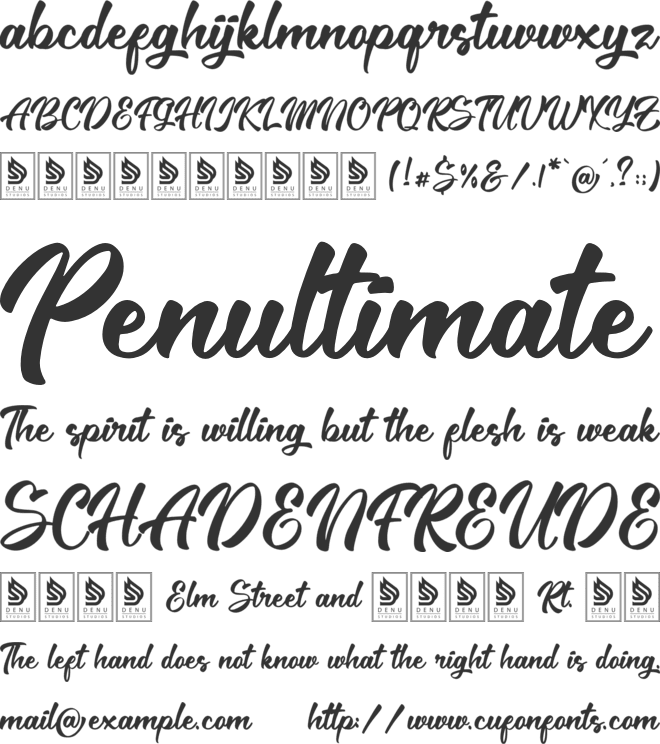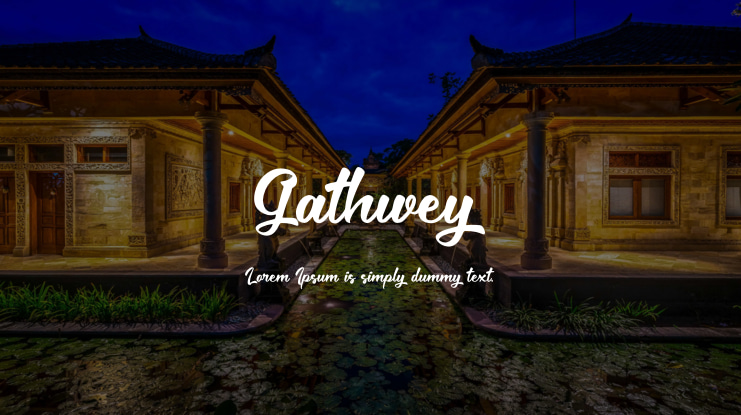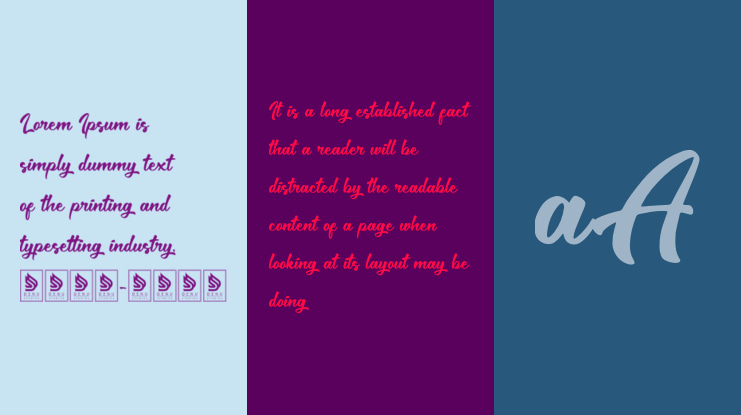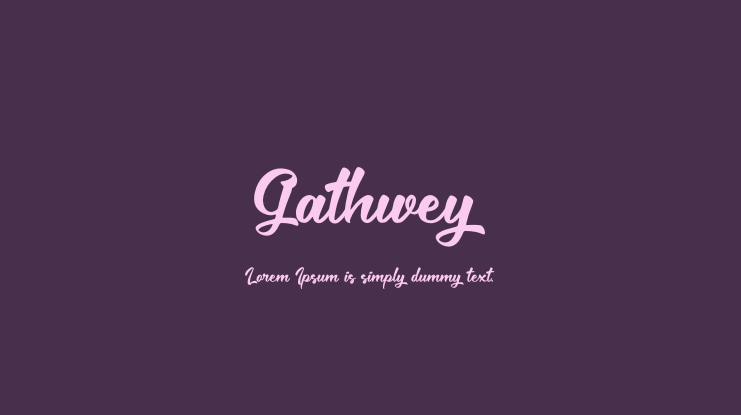
Gathwey Font
Gathwey | Bold Modern Script product packaging, mugs, quotes, posters, shopping bags, t-shirts, book covers, name card, invitation cards, greeting cards, label, photography, watermark, special events, and all your other lovely projects that need a Bold Modern Script taste.